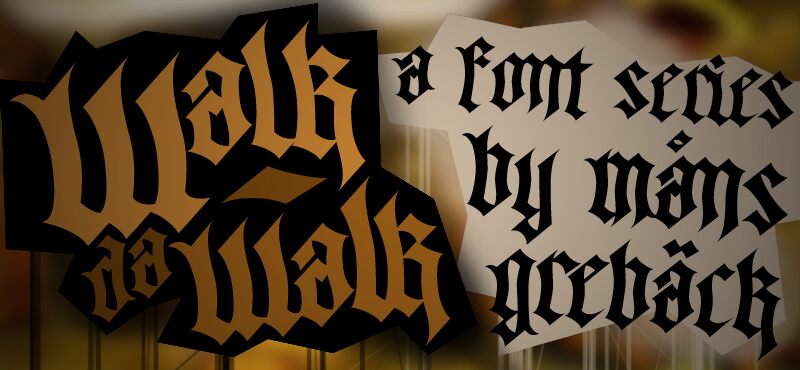
Walk Da Walk One by Måns Grebäck is a free medieval blackletter font with dense, sharply cut forms and a forceful Gothic silhouette. Tall spikes, hooked ends, and deep diamond-shaped notches give the lettering a carved, aggressive edge.
It is strongest on metal album covers, where its dark mass and thorny contours match the music's intensity. The same qualities suit motorcycle merchandise and horror event posters. Beside skulls, flames, or engraved ornament, the letters become part of the illustration.
Walk Da Walk One